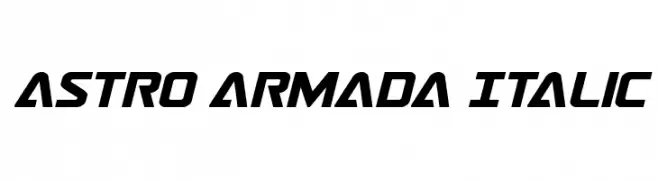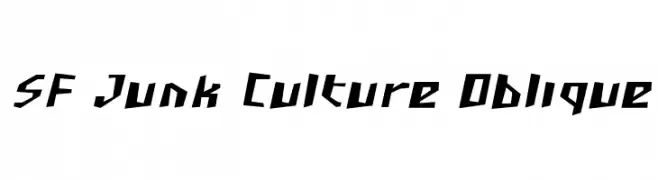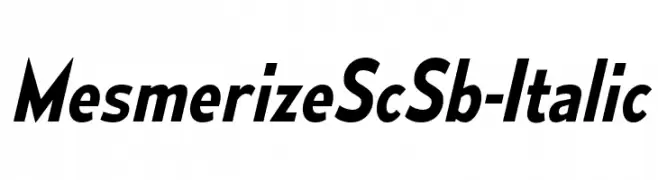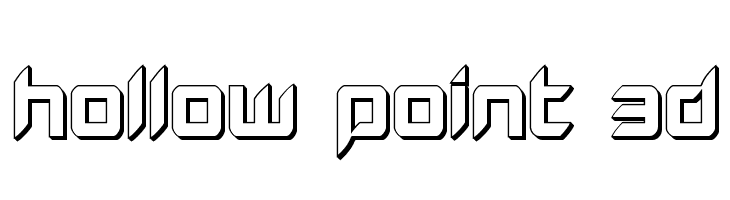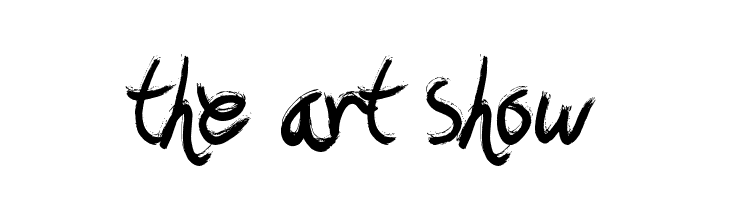
A bold, futuristic italic font with angular, geometric characters.
( Fonts by dustBUST - Andreas Nylin )
A modern, geometric outline font with an italic slant.
( Fonts by MJType )
A bold, playful font with rounded, bubble-like characters.
( Fonts by ShyFonts )
A bold, angular, and oblique font with a futuristic style.
( Typodermic Fonts - Ray Larabie - www.typodermicfonts.com/ )
A bold, modern italic font with a sleek, condensed style.
( Fonts by Brithos Type )
Bold, angular display font with a playful style.
A playful, hand-drawn outline font with bold accents.